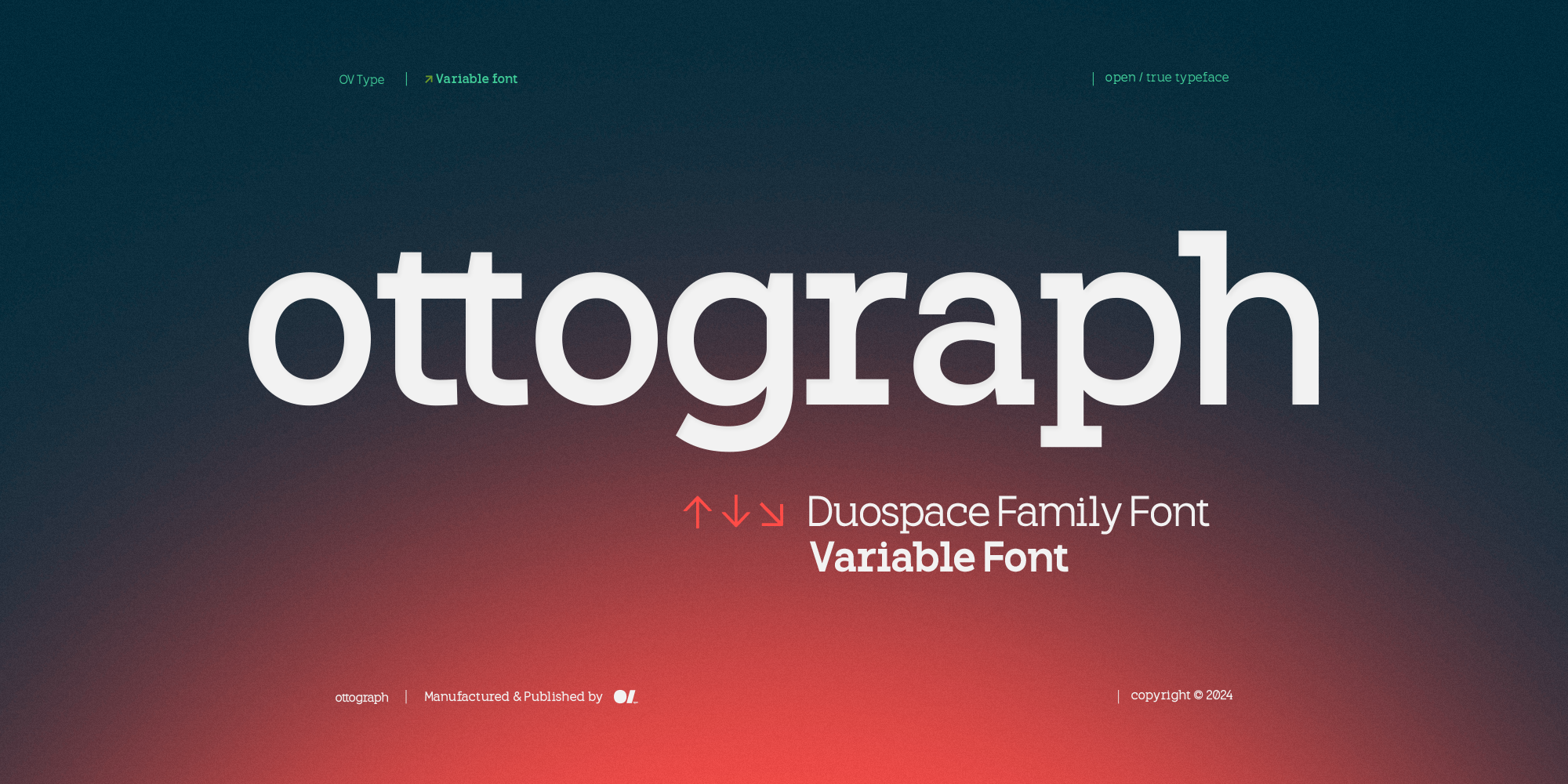
OV Ottograph Duospace Font is a strikingly modern and highly technical typeface, specifically designed with a unique duospace characteristic that sets it apart. Imagine this font being used in advanced coding environments, offering supreme readability and visual consistency for programmers. It's also an excellent choice for data visualization, technical documentation, and user interfaces where a precise, grid-aligned aesthetic is crucial. Furthermore, OV Ottograph Duospace Font can lend a sophisticated, almost futuristic feel to branding for high-tech industries, scientific publications, and anything that demands both clear legibility and a distinct, engineered look. Its unique design makes it perfect for projects where every character needs its own dedicated space, ensuring perfect alignment.
What makes OV Ottograph Duospace Font truly exciting is its innovative approach to spacing, combining the benefits of monospaced and proportional fonts. While offering the fixed width of a monospaced font, it often provides better optical balance and a less rigid appearance, making it more pleasing for continuous reading. This unique "duospace" feature ensures that each character occupies a consistent block of space, which is invaluable for code, tabular data, and structured text, while still maintaining an aesthetic appeal that can elevate design. It represents a thoughtful blend of functional precision and contemporary design, making it a powerful tool for clarity and style.
OV Ottograph Duospace Font Family
OV Ottograph Duospace Font typically comes with a well-structured family that emphasizes its precision and versatility. You'll often find it available in various weights such as Regular, Bold, and potentially Light or Medium, allowing for clear hierarchy in technical and textual applications. Given its duospace nature, the primary focus of its family is often on consistent character width across all weights and styles, ensuring that alignment is maintained when switching between them. Some families might also include Italic versions that retain the duospace property, offering a subtle stylistic variation without compromising its core functionality. These variations provide designers with the flexibility to apply this highly specialized font effectively across different sections of a project.